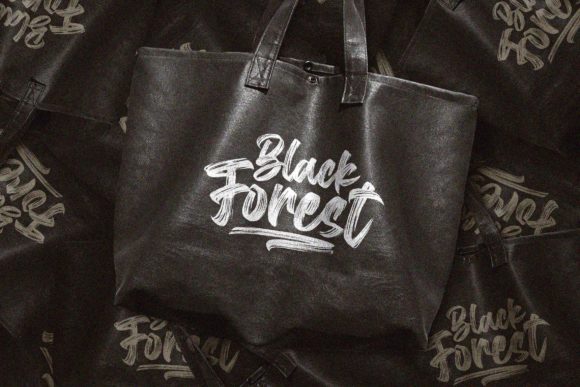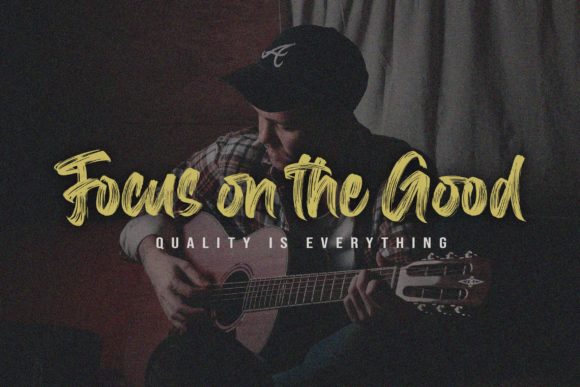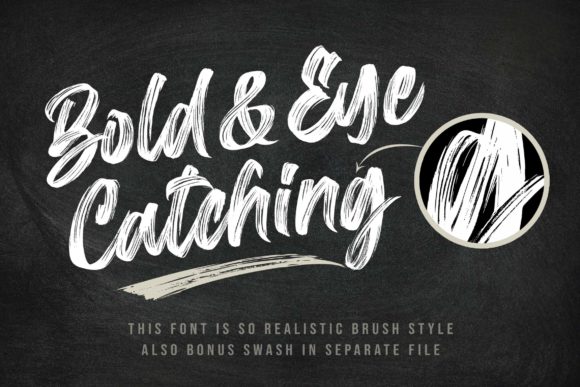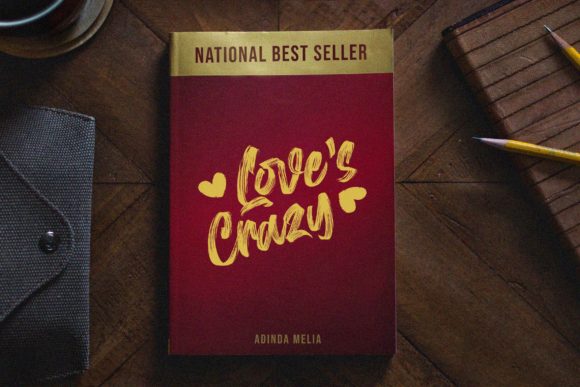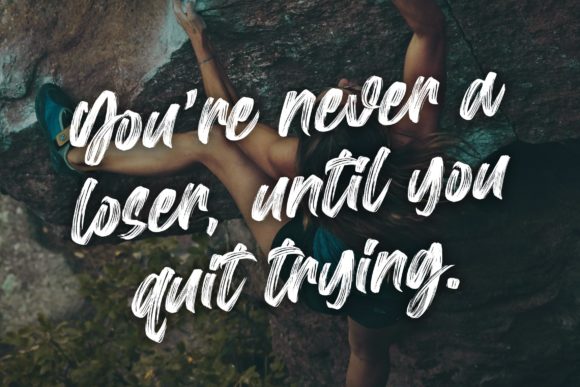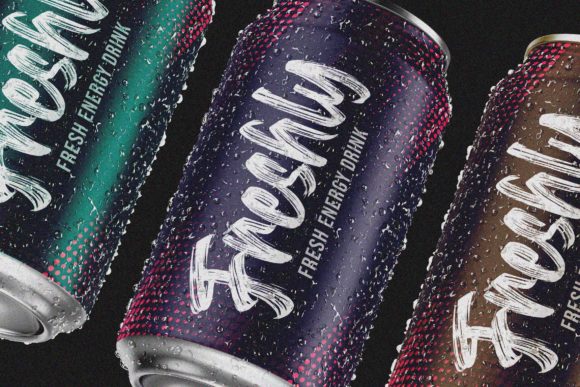
Introducing Dark Crow Font: Elevate Your Designs with Elegance and Flair
Are you on the hunt for a font that exudes elegance, sophistication, and a touch of whimsy? Look no further than Dark Crow Font, a stunning handwritten typeface that is sure to capture your heart. Designed with the help of a unique and outstanding brush pen, Dark Crow is an incredibly versatile font that can be used to create a wide range of designs, from beautiful branding and advertising materials to gorgeous craft projects and digital art.
The Story Behind Dark Crow Font
Dark Crow Font is the brainchild of a talented designer who sought to create a font that would stand out from the crowd. With its flowing, handwritten lines and elegant curves, Dark Crow is a true masterpiece. The font’s creator drew inspiration from traditional brush pen calligraphy, using a special pen to craft each letter with precision and care. The result is a font that is both refined and rustic, with a unique character that is sure to add a touch of personality to any design.
What Makes Dark Crow Font So Special?
So, what sets Dark Crow Font apart from other fonts on the market? Here are just a few of its standout features:
- Elegant and flowing lines: Dark Crow Font features beautiful, flowing lines that give it a sense of movement and energy.
- Unique and outstanding brush pen design: The font’s creator used a special brush pen to craft each letter, giving Dark Crow a distinctive look and feel.
- Incredibly versatile: Dark Crow Font can be used for a wide range of designs, from elegant branding and advertising materials to more playful craft projects and digital art.
- Handwritten with love and care: Each letter in Dark Crow Font was carefully crafted by hand, giving it a personal and human touch.
Uses for Dark Crow Font
Dark Crow Font is an incredibly versatile typeface that can be used for a wide range of designs. Here are just a few ideas to get you started:
- Branding and advertising: Use Dark Crow Font to create stunning logos, business cards, and advertising materials that are sure to make your brand stand out.
- Digital art: Add a touch of elegance and sophistication to your digital art with Dark Crow Font.
- Craft projects: Use Dark Crow Font to create beautiful craft projects, such as handmade cards, scrapbooking pages, and journal entries.
- Wedding and event planning: Dark Crow Font is the perfect choice for wedding and event planners who want to add a touch of elegance and sophistication to their designs.
Tips for Using Dark Crow Font
Here are a few tips for getting the most out of Dark Crow Font:
- Experiment with different sizes and colors: Dark Crow Font looks great in a variety of sizes and colors, so don’t be afraid to experiment and find the combination that works best for your design.
- Pair it with other fonts: Dark Crow Font pairs beautifully with other fonts, so try combining it with a sans-serif font for a striking contrast.
- Use it to add a personal touch: Dark Crow Font’s handwritten lines and elegant curves make it the perfect choice for adding a personal touch to your designs.
In conclusion, Dark Crow Font is a stunning handwritten typeface that is sure to capture your heart. With its elegant and flowing lines, unique and outstanding brush pen design, and incredibly versatile style, Dark Crow Font is the perfect choice for designers and crafters who want to add a touch of elegance and sophistication to their designs. So why wait? Fall in love with Dark Crow Font today and start creating spectacular designs that are sure to impress!